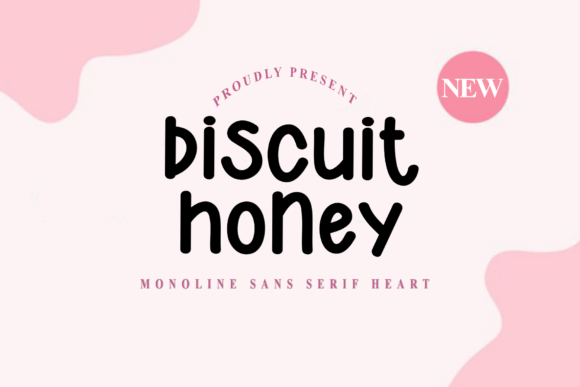
A Sweet Creative Moment There’s nothing quite like the feeling of biting into a freshly baked cookie, the warmth and aroma filling your senses. As creatives, we often find inspiration in the smallest of pleasures, and the Biscuit Honey Font is no exception. Its whimsical charm is reminiscent of a warm hug on a chilly…